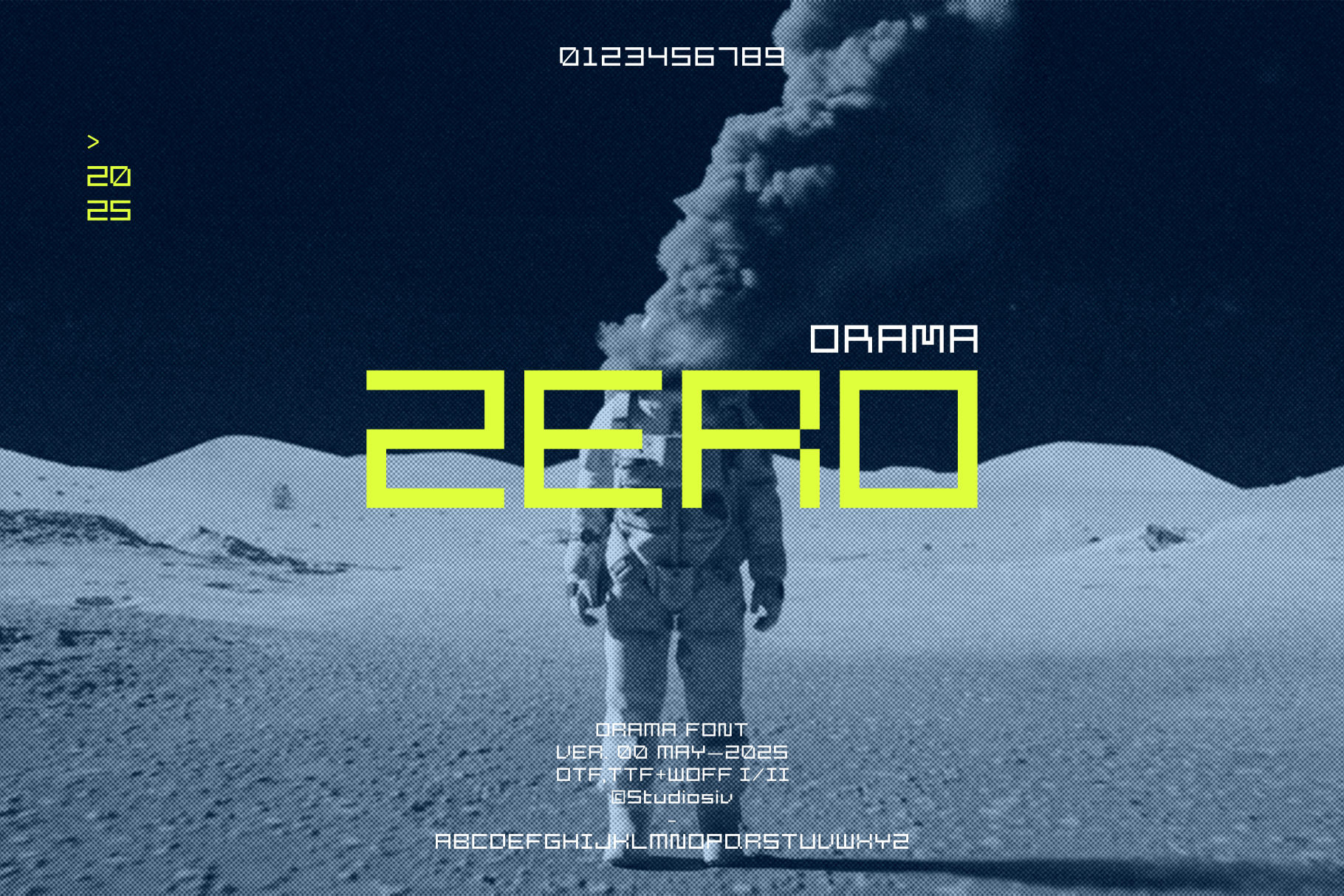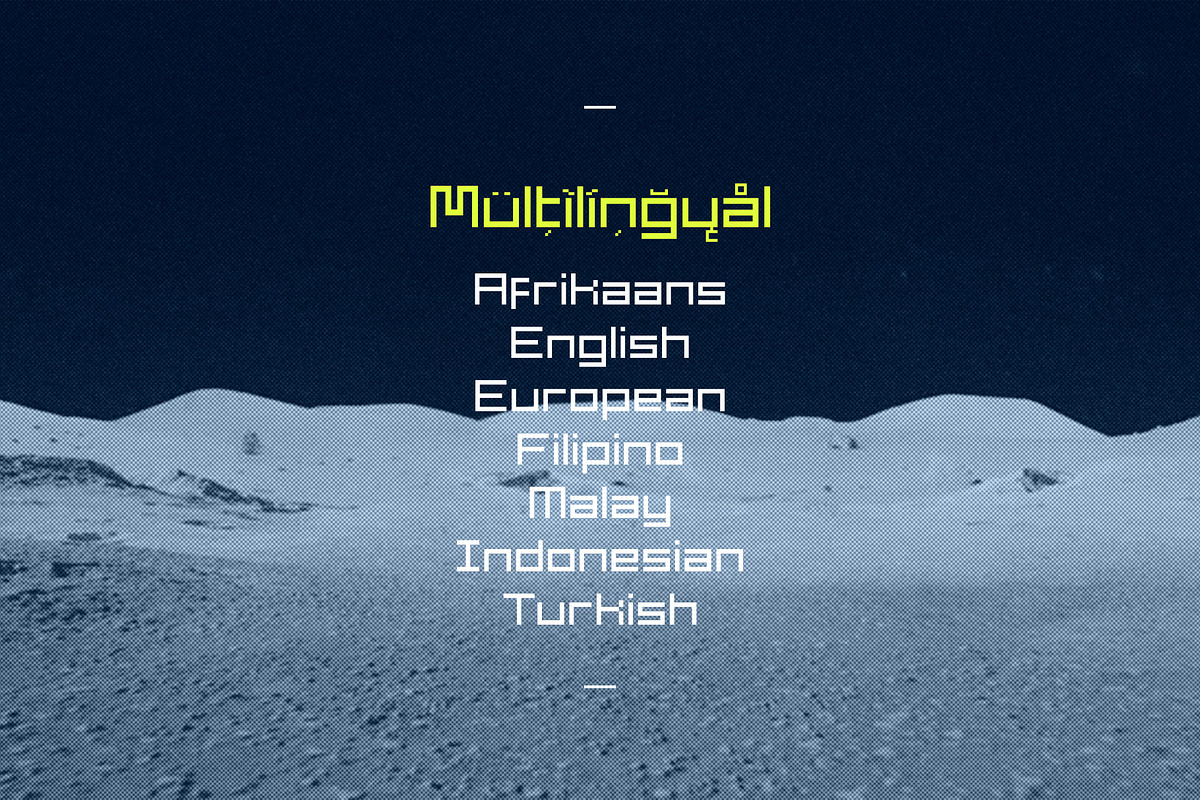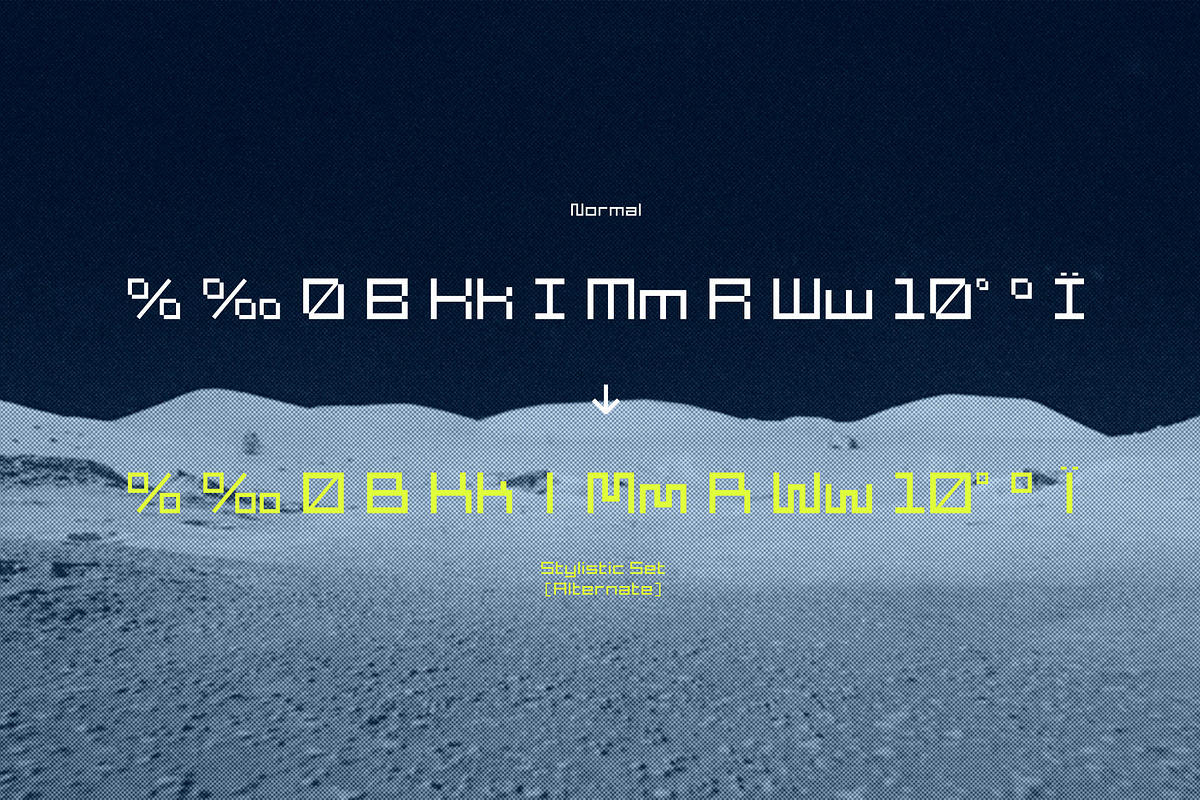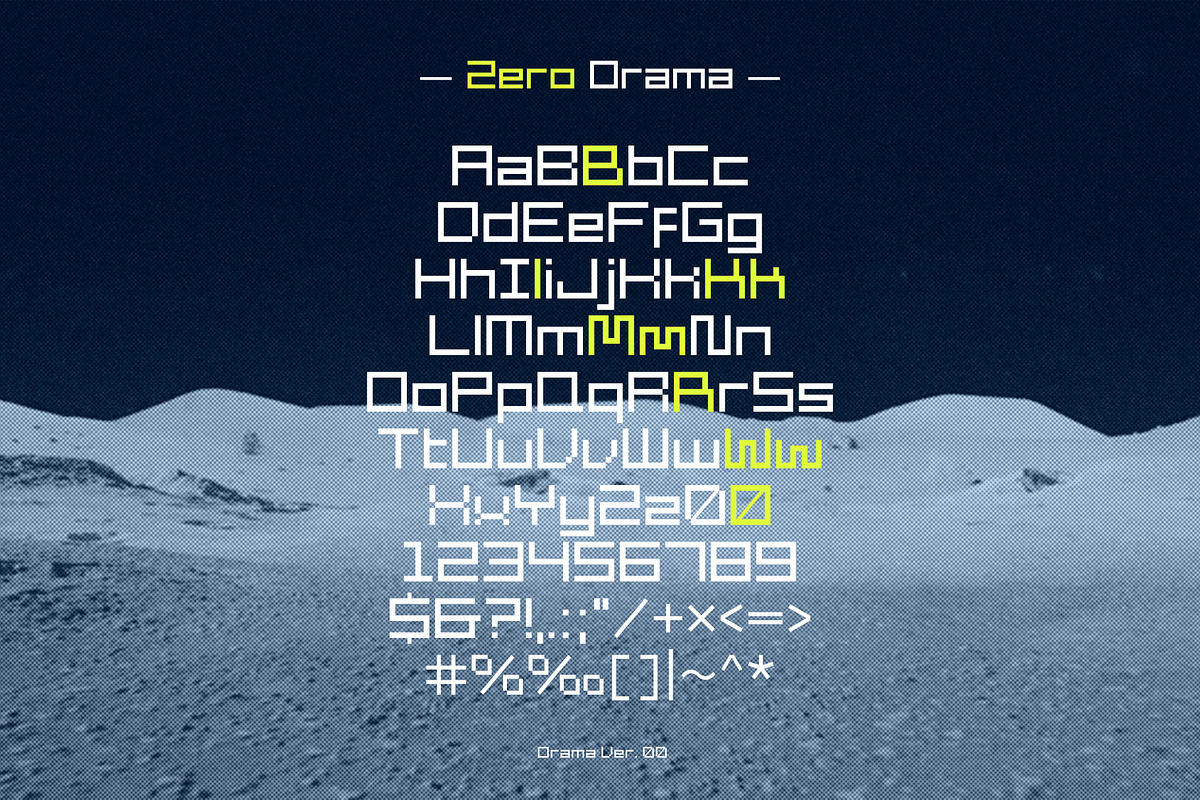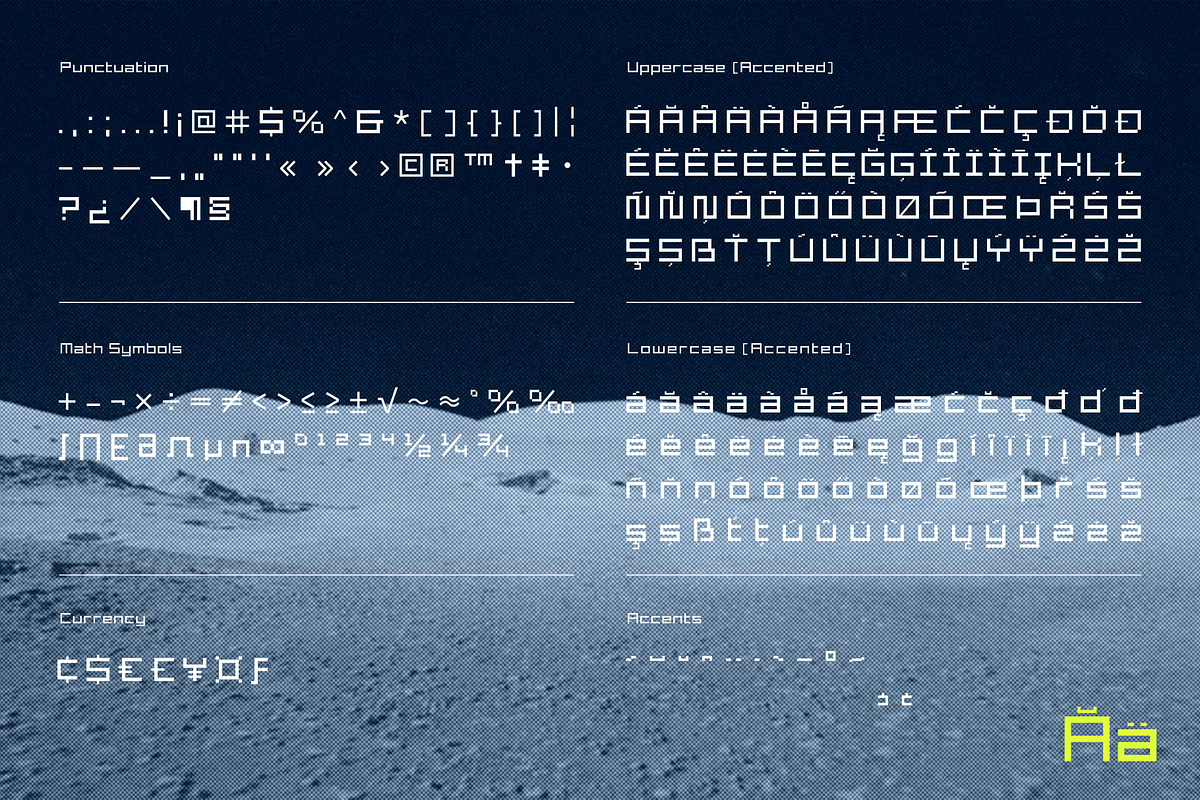
Zero Orama - Square Pixel Font
Zero Orama is a pixel-based square font.
- 2 Styles (Normal & Wide with Alternate)
- Stylistic Set Feature
- Supports over 36 Languages
Language Support
Afrikaans • Albanian • Basque • Bosnian • Catalan • Croatian • Czech • Danish • Dutch • English • Estonian • Faroese • Filipino • Finnish • French • Galician • German • Hungarian • Icelandic • Indonesian • Irish • Italian • Latvian • Lithuanian • Malay • Norwegian • Polish • Portuguese • Scottish • Slovenian • Spanish • Swedish • Turkish • Venetian • Welsh • Zulu